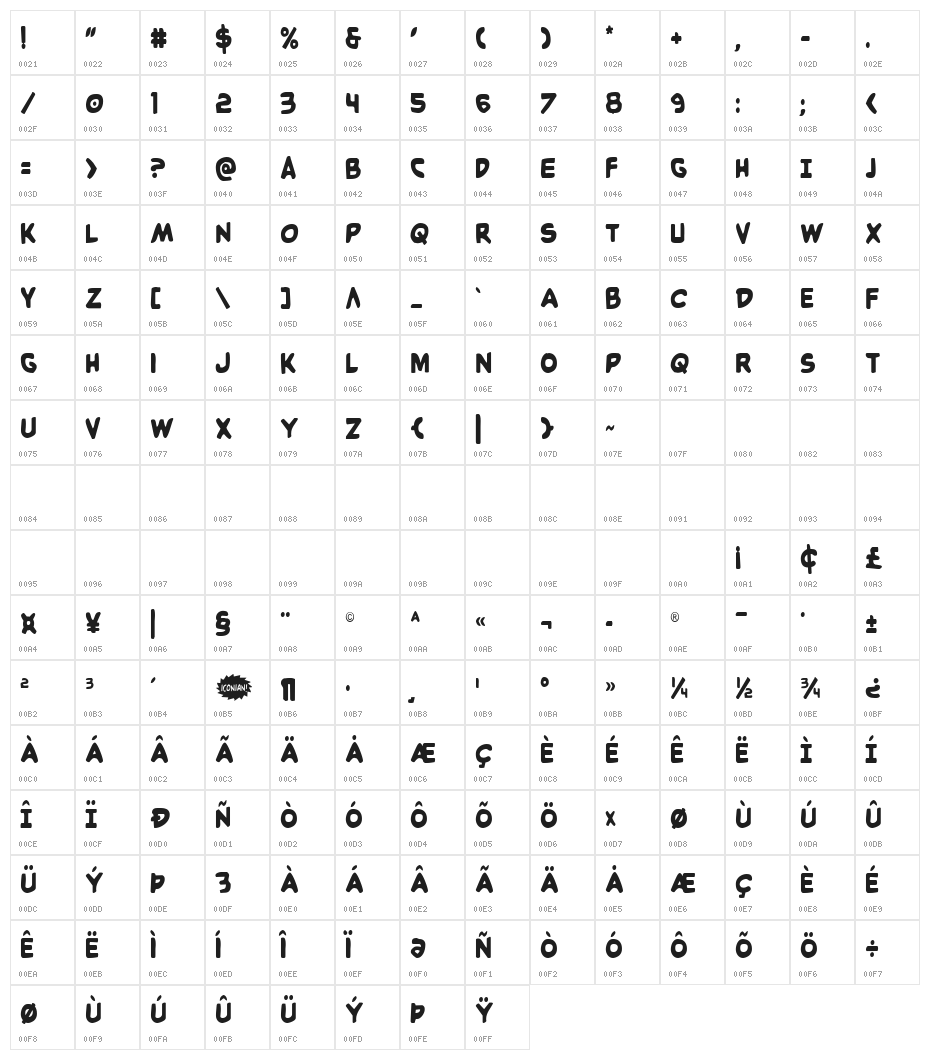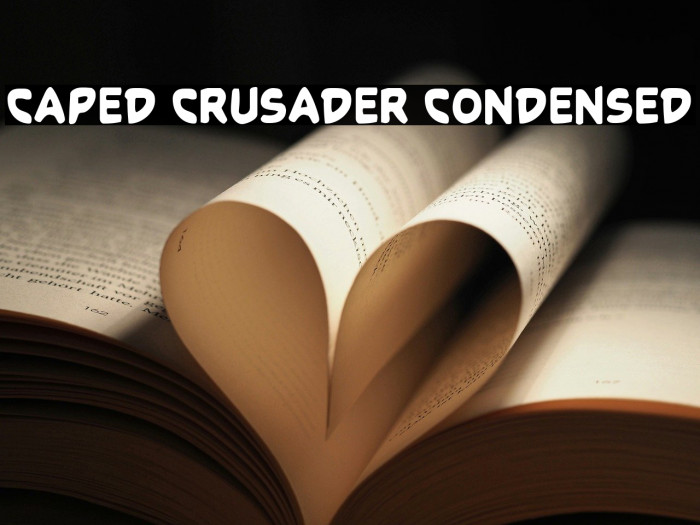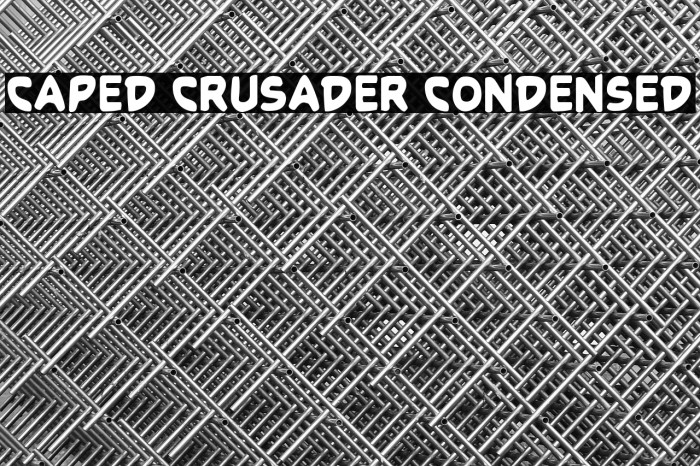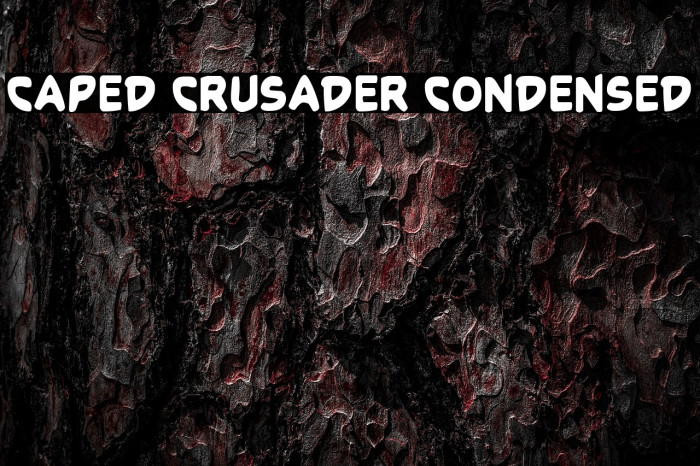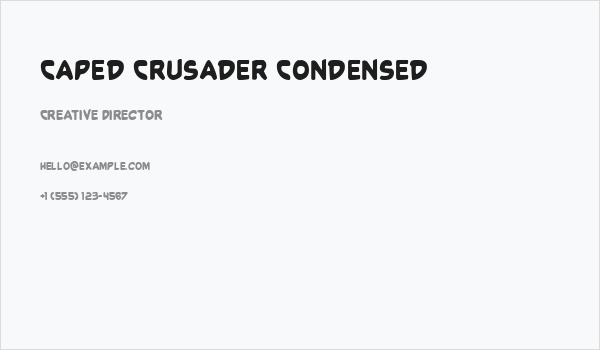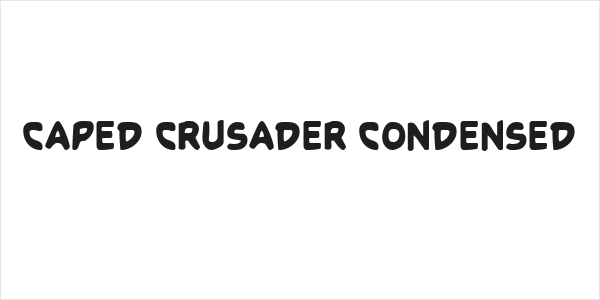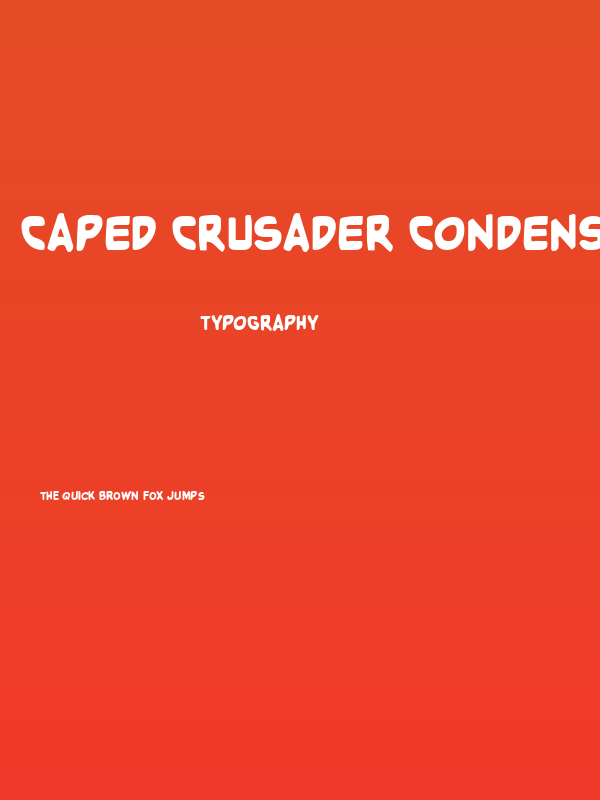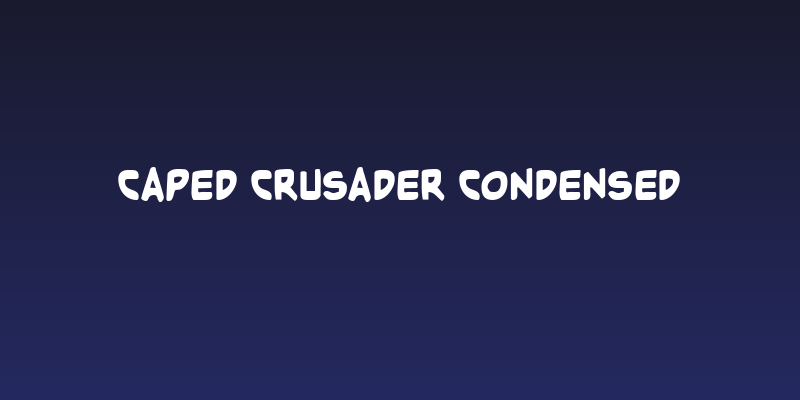
Caped Crusader Condensed Font
Caped Crusader Condensed Description
This font features a bold and playful design with a condensed structure. The characters are rounded and slightly irregular, giving them a hand-drawn, comic-like appearance. The uppercase and lowercase letters maintain a consistent style, with thick strokes and minimal contrast. The numbers and special characters follow the same playful aesthetic, making the font suitable for informal and creative projects. Its unique style captures attention and adds a fun, dynamic element to any design.
| Overall Style | Playful, Comic |
| Proposed Projects | Ideal for comic books, children's books, playful branding, posters, and any project requiring a fun and dynamic typeface. |